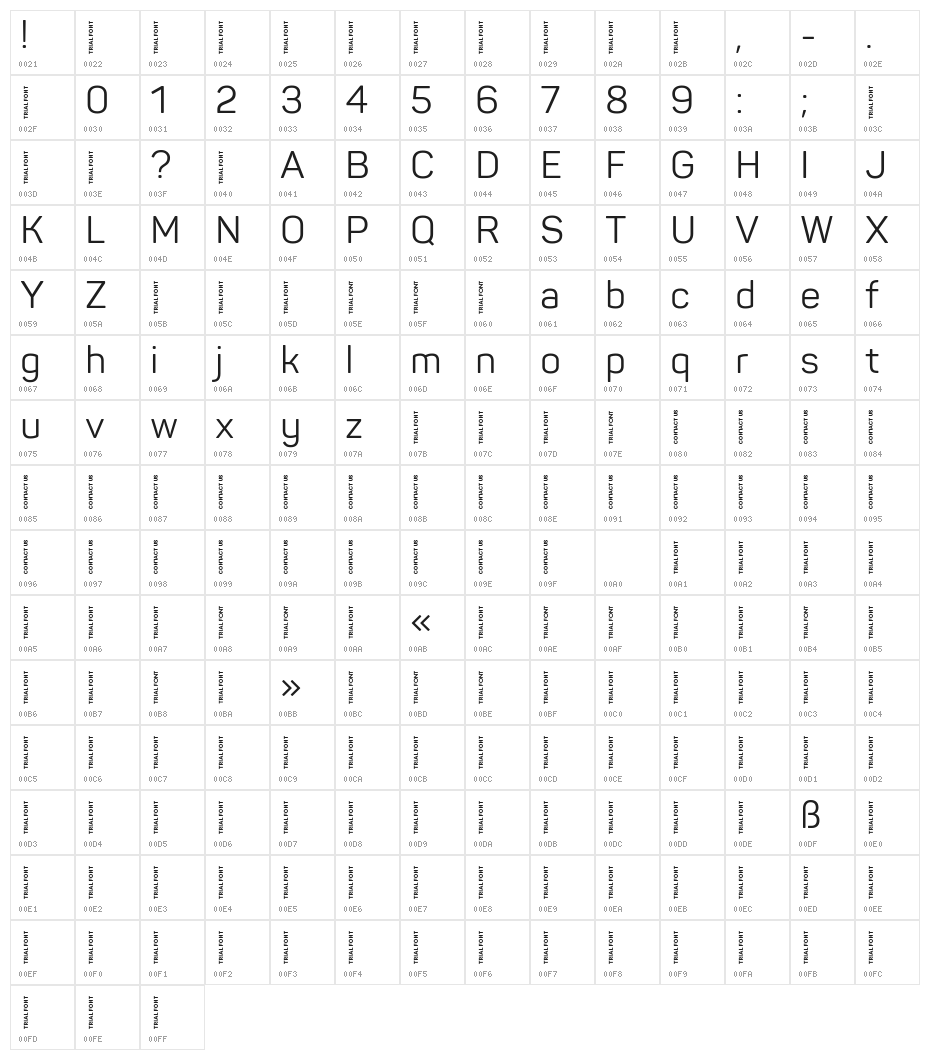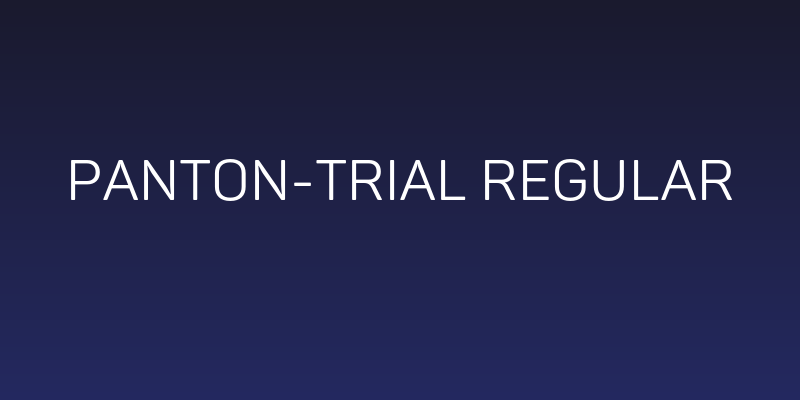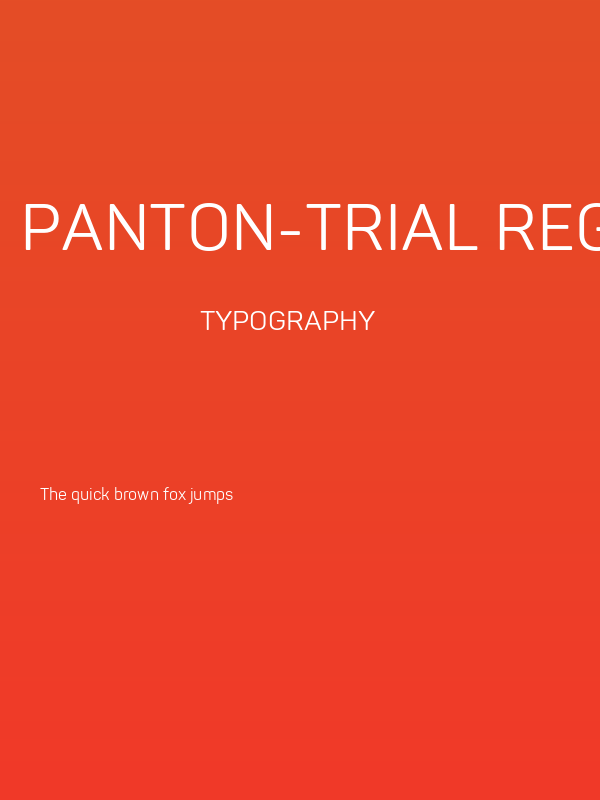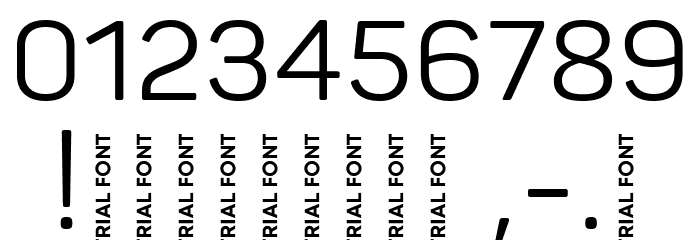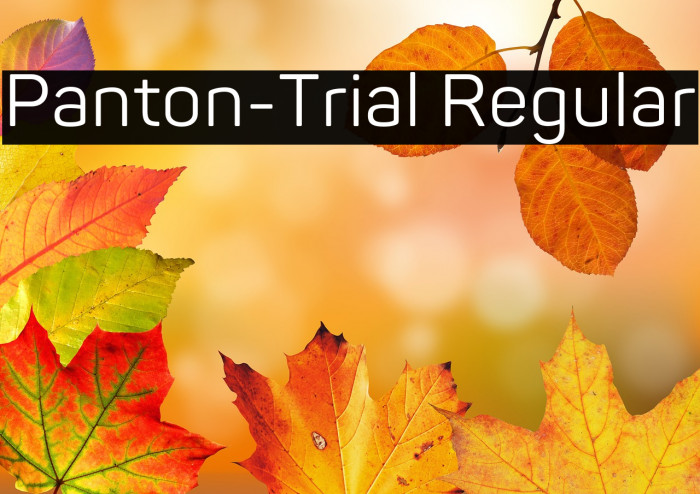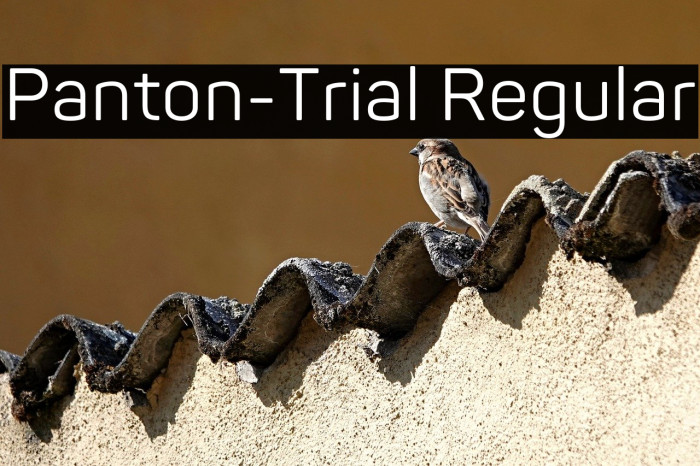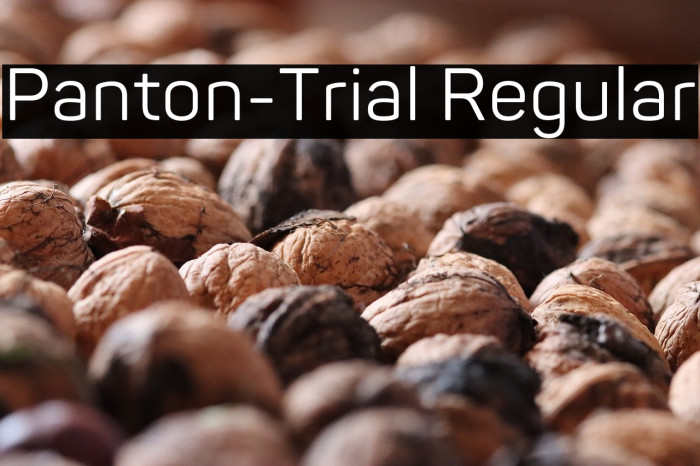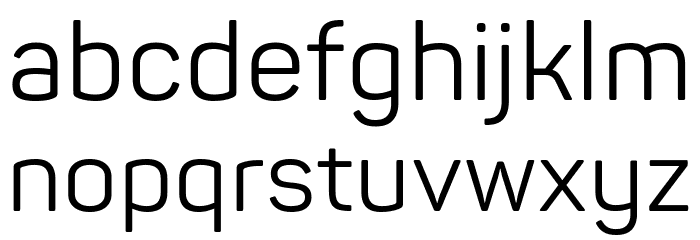
Panton-Trial Regular Font
Panton-Trial Regular Description
This font exhibits a clean and modern sans-serif style with a geometric structure. The characters are well-balanced, featuring smooth curves and straight lines that create a harmonious appearance. The uppercase letters are bold and assertive, while the lowercase letters maintain a friendly and approachable feel. The numerals are clear and easy to read, making them suitable for various applications. Special characters are designed with the same attention to detail, ensuring consistency across the font. The overall design is versatile, making it suitable for both digital and print media.